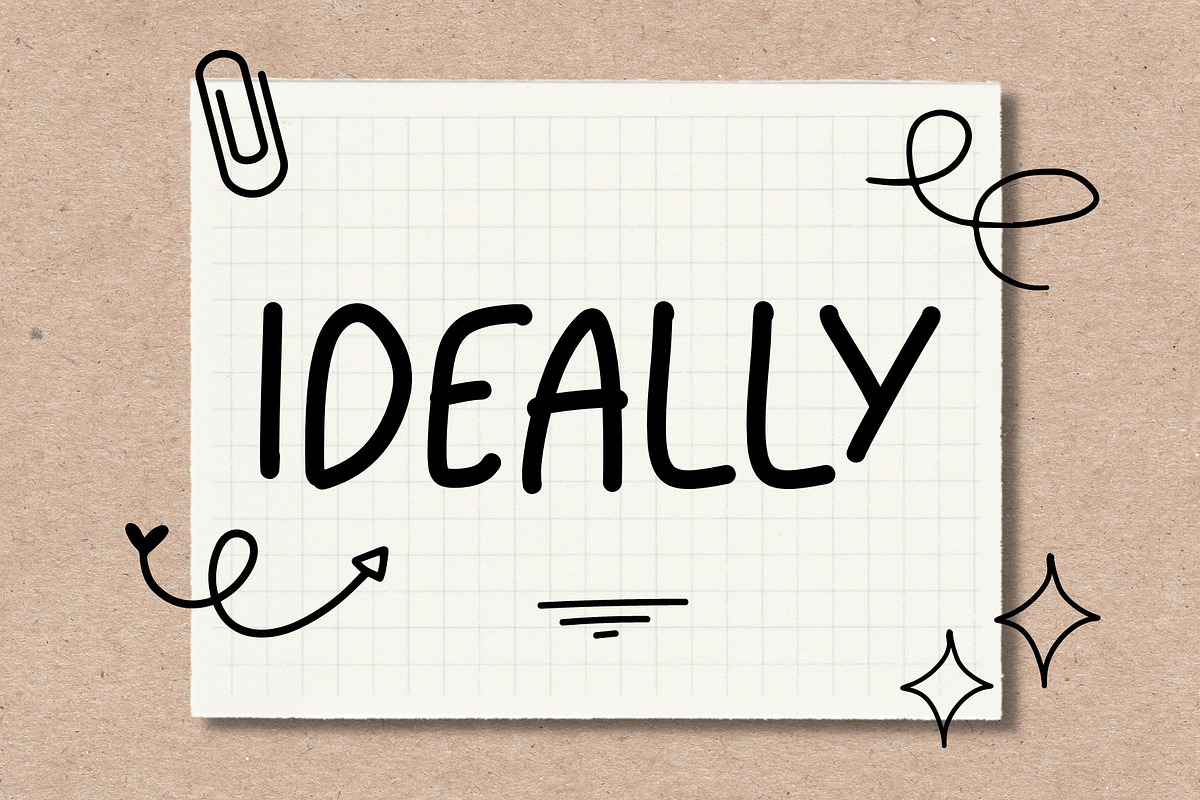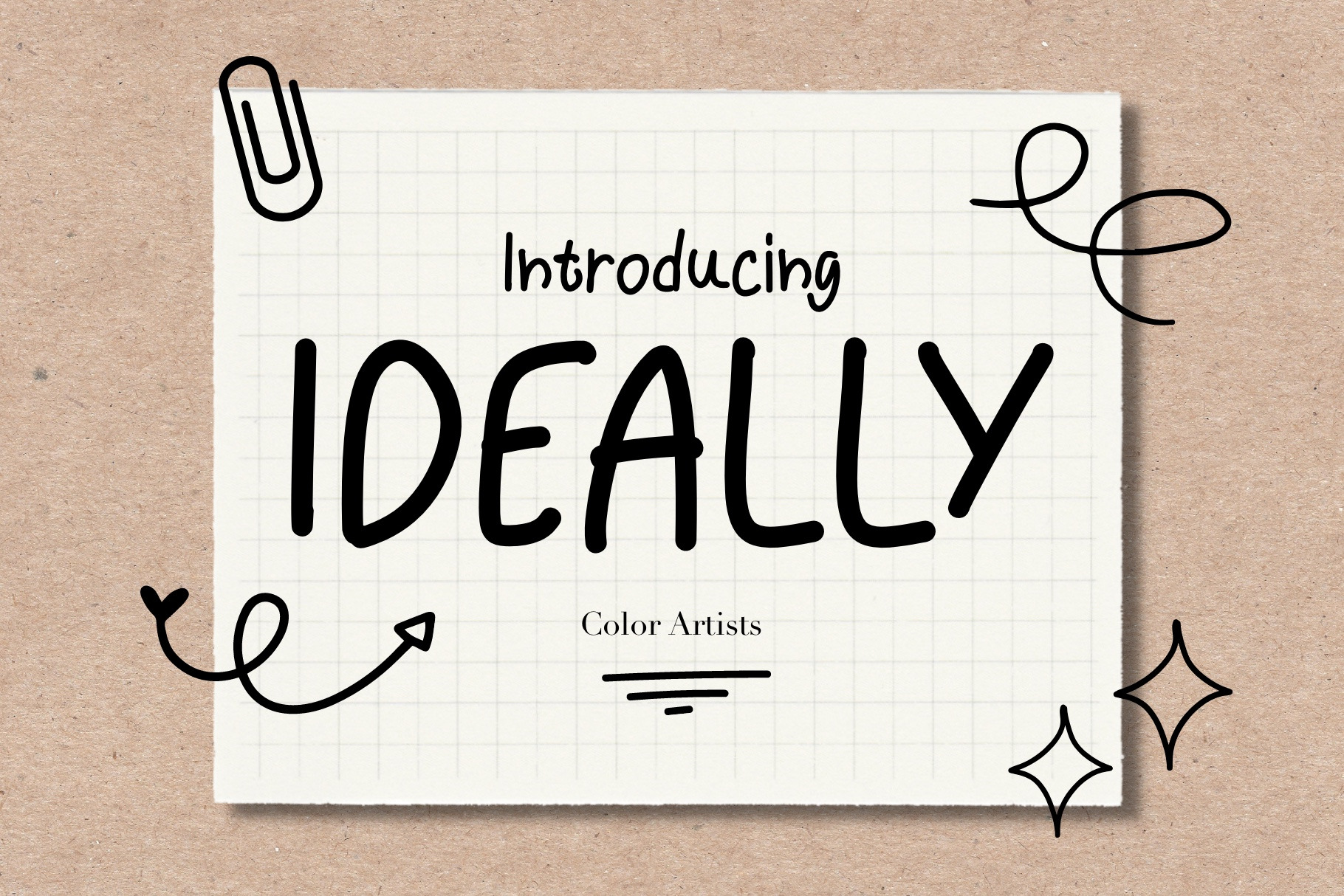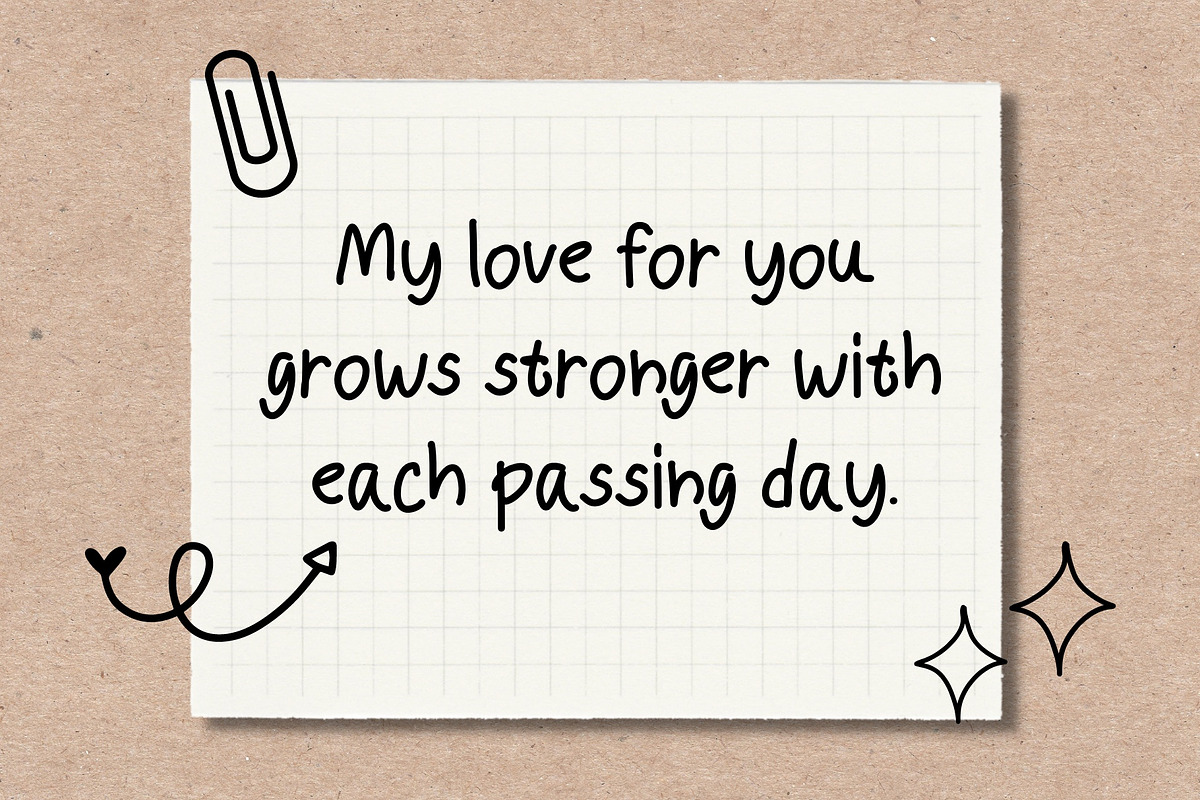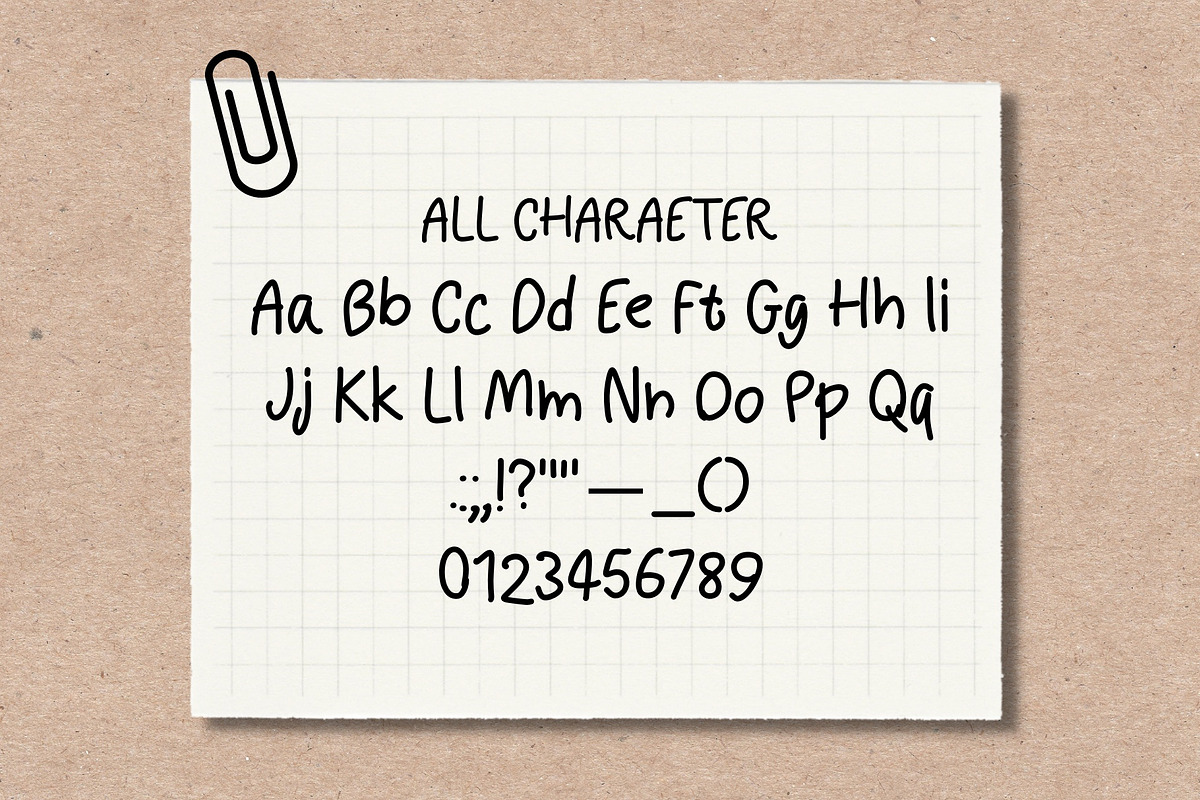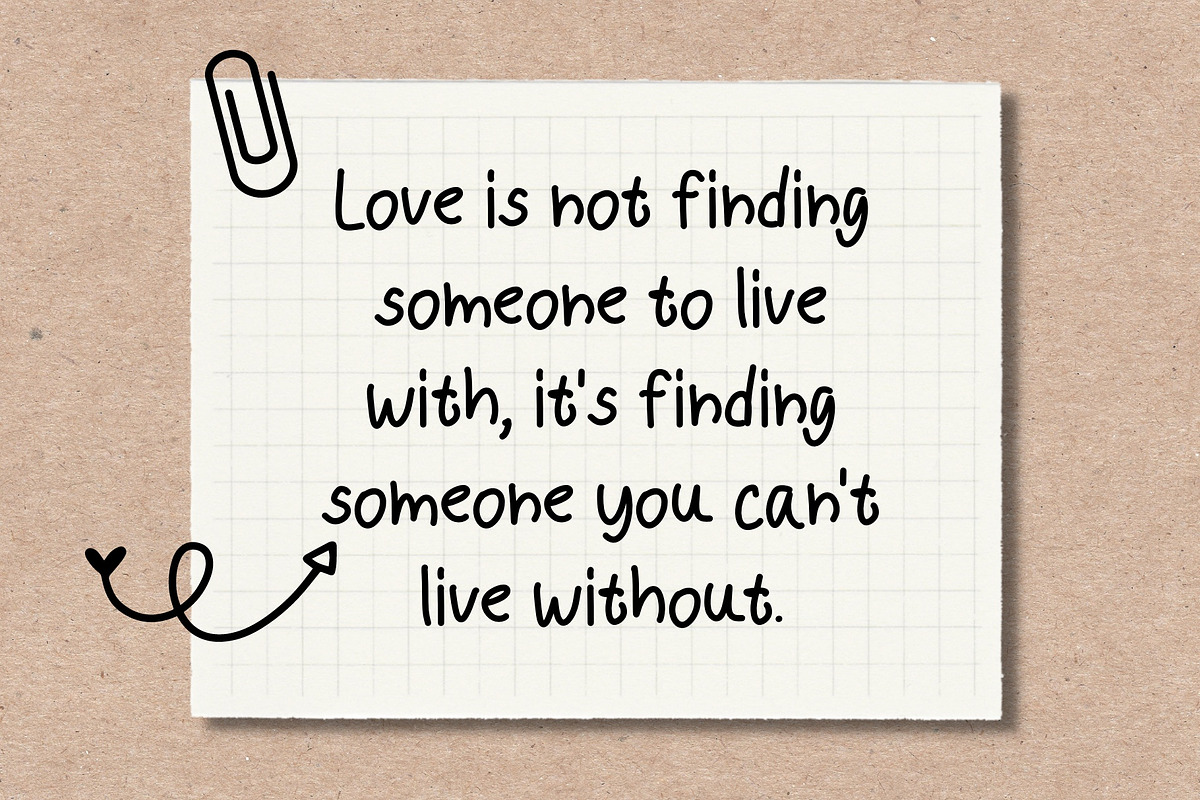
Ideally Font
Unleash your creativity with the enchanting beauty of Ideally Font. Designed to captivate and inspire, this exquisite typeface is the perfect choice for all your design needs. With its refined curves and graceful strokes, Ideally effortlessly blends elegance with modernity, making it ideal for a wide range of projects.